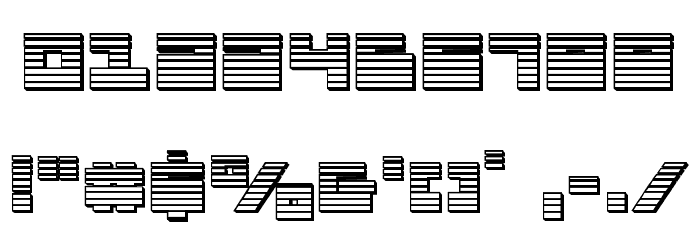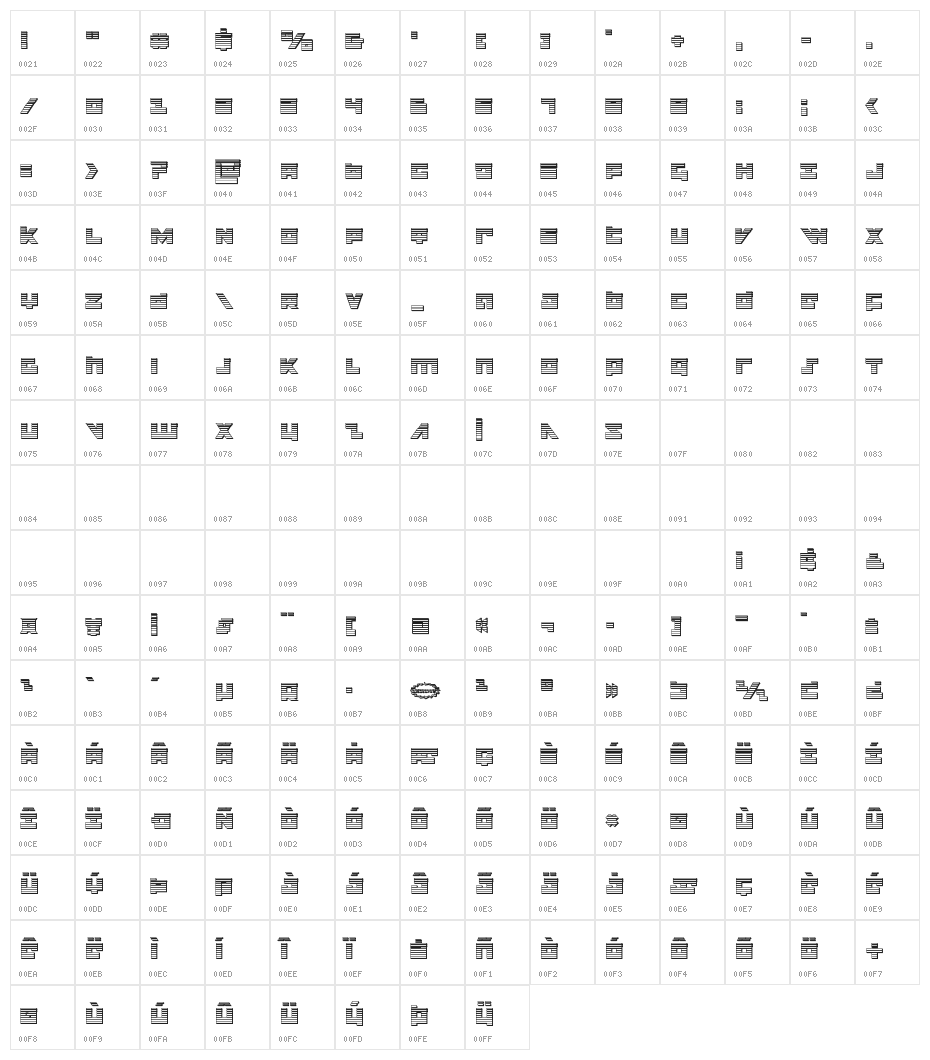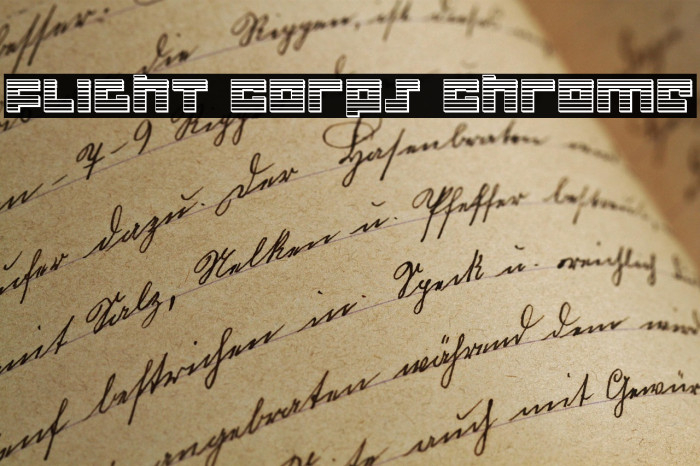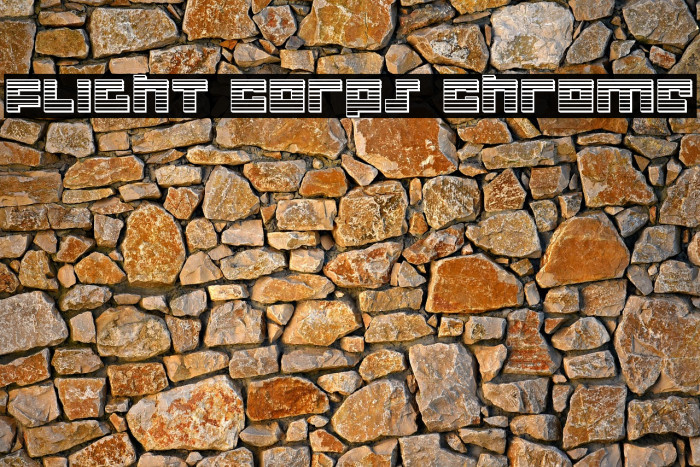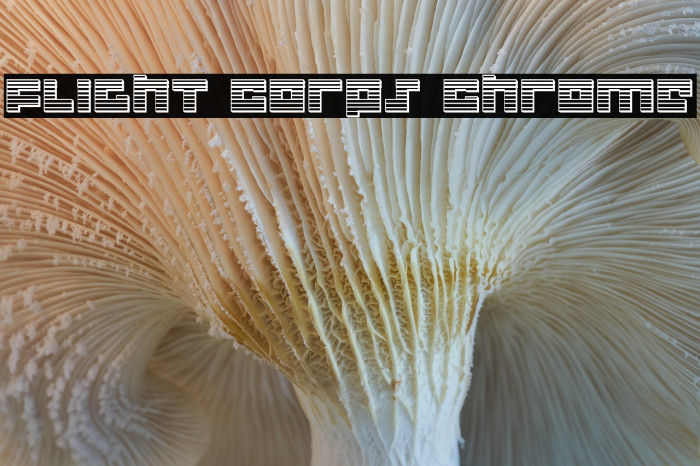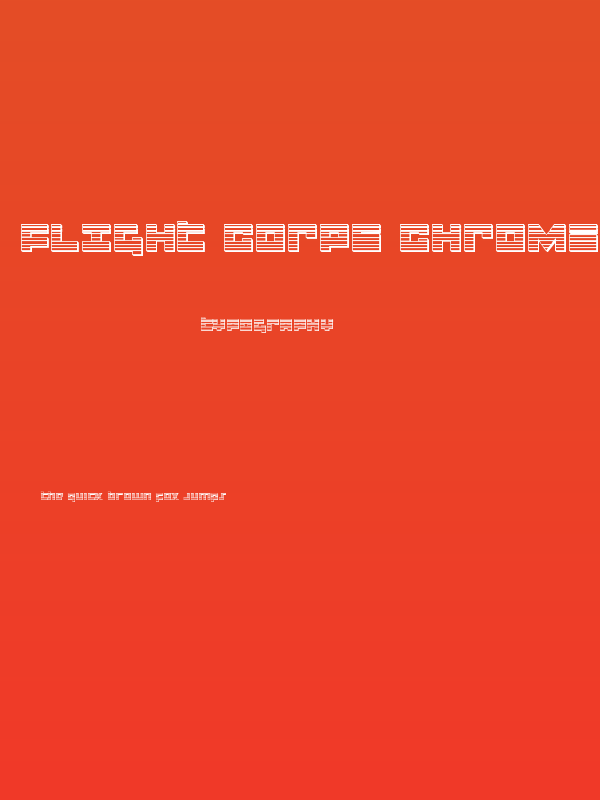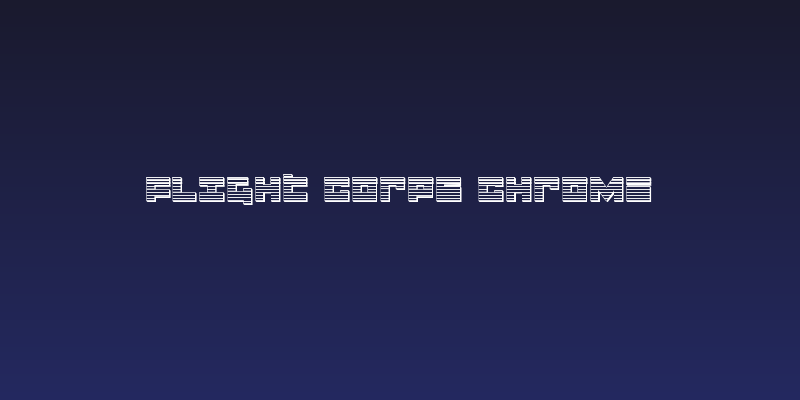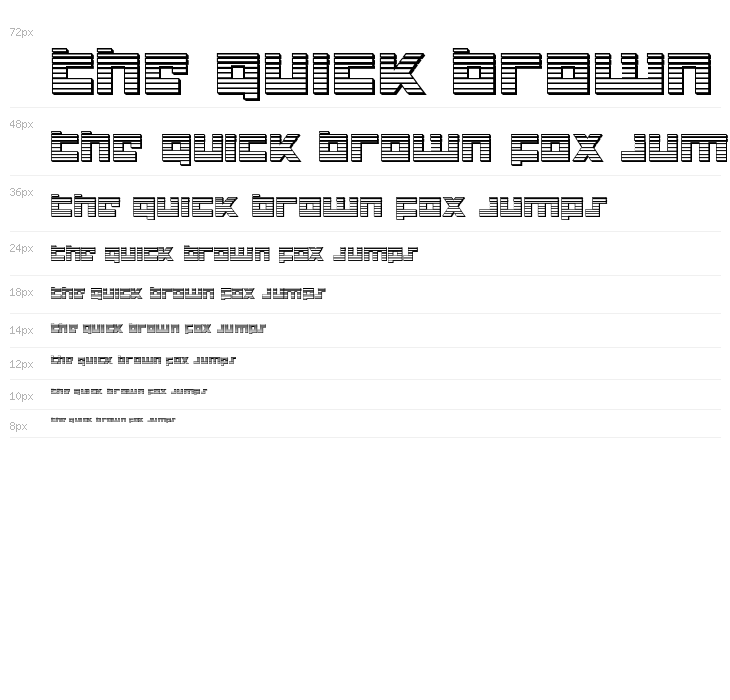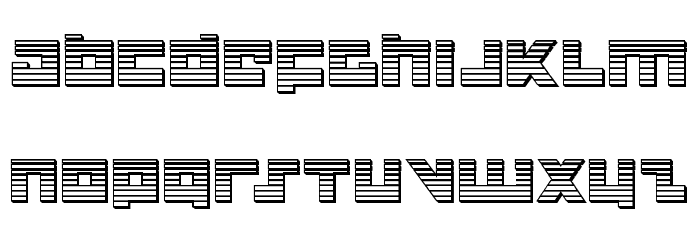
Flight Corps Chrome Font
Flight Corps Chrome Description
This font features a bold, futuristic design with a distinct striped pattern running horizontally across each character. The geometric structure gives it a modern and industrial feel, reminiscent of digital displays or mechanical components. The uppercase and lowercase letters maintain a consistent style, with sharp angles and clean lines. Numbers and special characters are equally stylized, ensuring uniformity across all elements. The font's unique aesthetic makes it stand out, suitable for projects that require a tech-savvy or avant-garde look.
| Proposed Projects | Ideal for sci-fi themed designs, tech company branding, video game titles, and futuristic posters. |